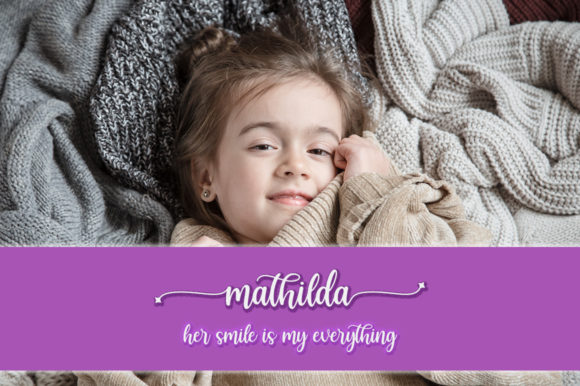
Mathilda Font
db-ku.com - Script & Handwritten -- Mathilda is a ravishing script font, with an adaptable and readable style. It looks stunning on wedding invitations, thank you cards, quotes, greeting cards, logos, business cards and every other design which needs a handwritten touch.